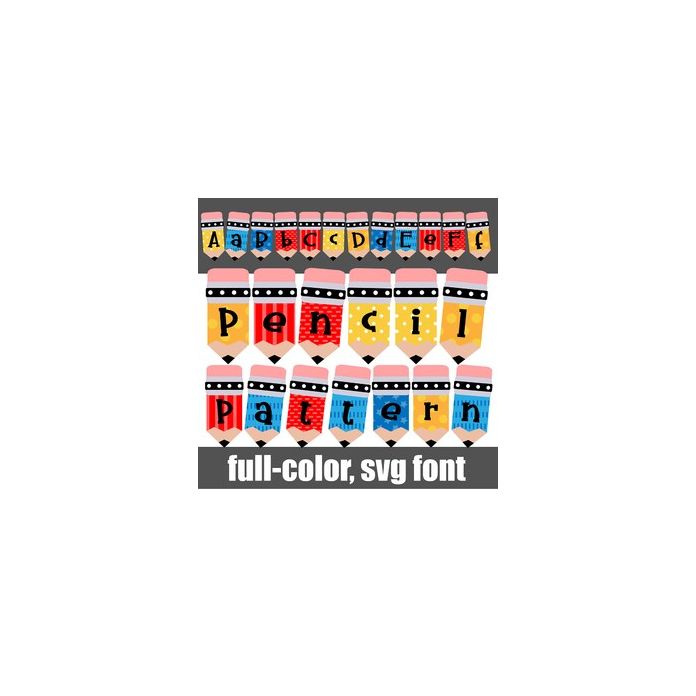
This full-color font features cute pencils in primary colors and patterns. There is an alt case w/ additional colors you can access through your system or Silhouette's glyph map.